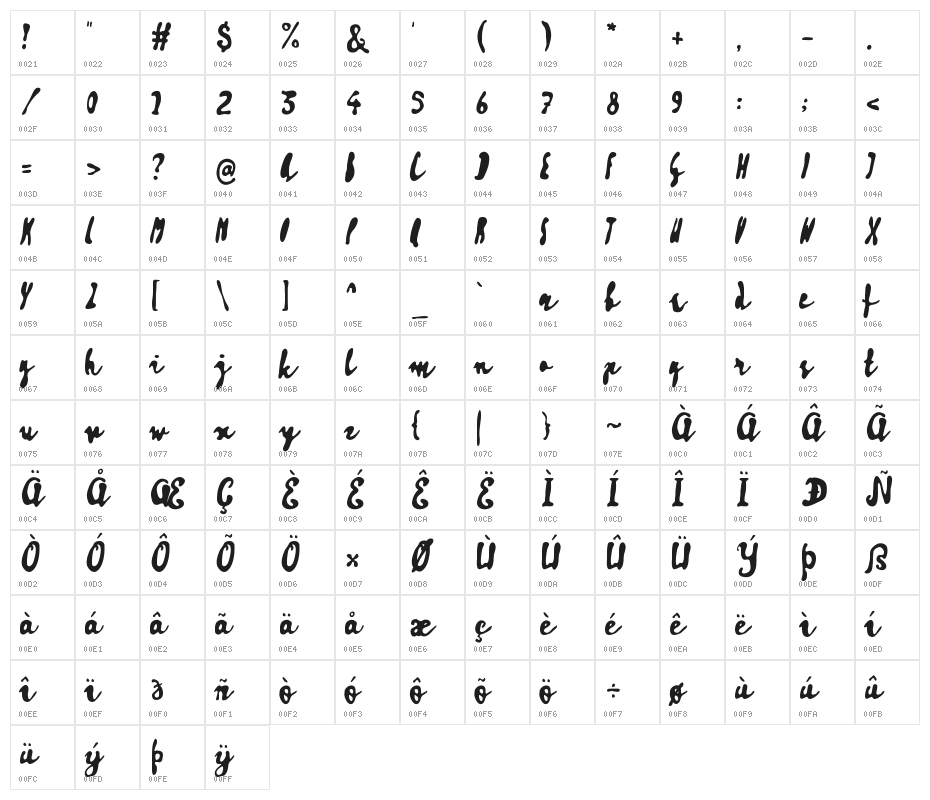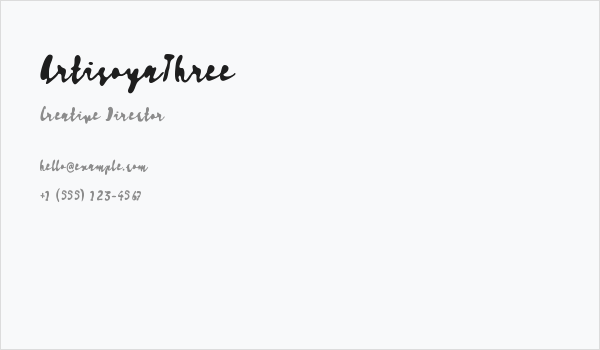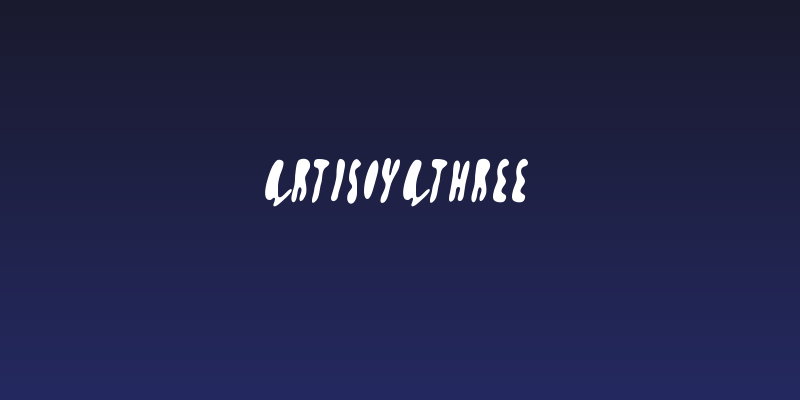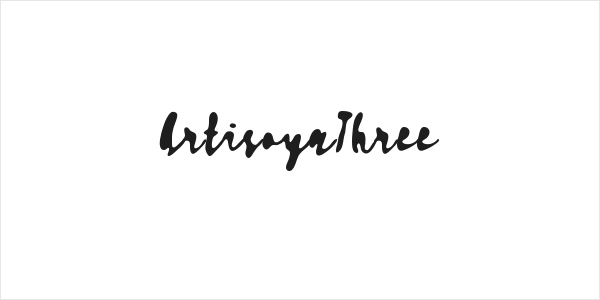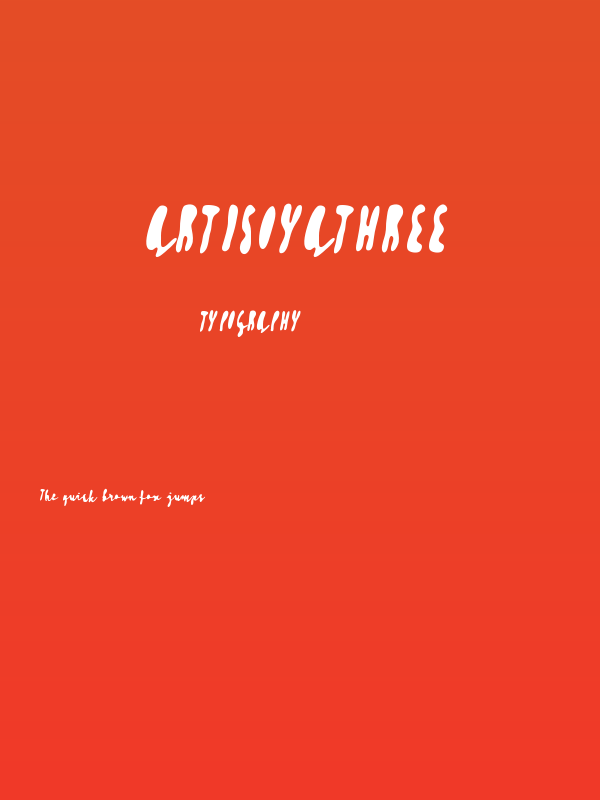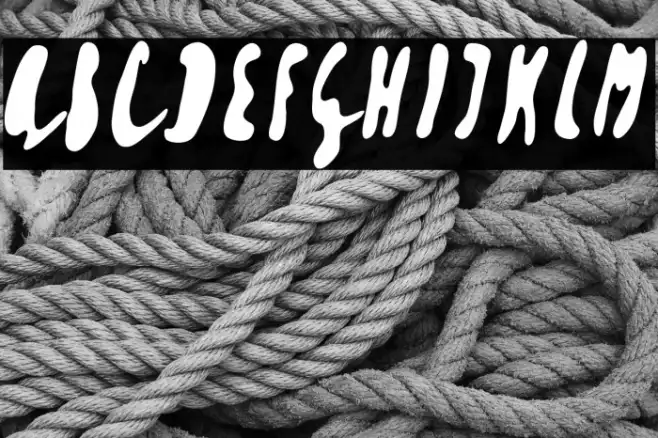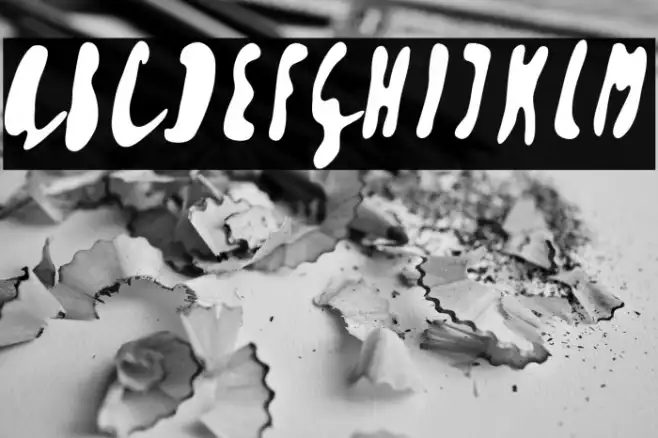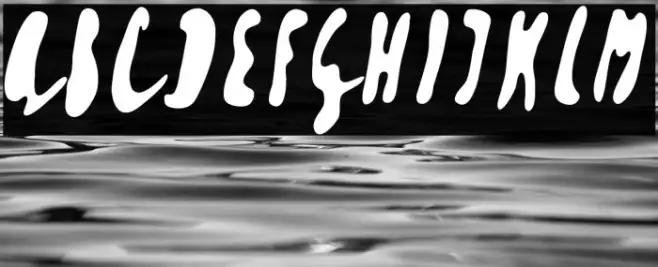
ArtisoyaThree Font
ArtisoyaThree Description
This font features a bold and expressive script style with a handwritten appearance. The letters are fluid and dynamic, with a playful and artistic flair. The uppercase characters are slightly more structured, while the lowercase letters exhibit a more freeform and cursive style. The numbers and special characters maintain the same boldness and fluidity, making them cohesive with the alphabet. The overall look is both modern and artistic, suitable for creative projects that require a personal touch.
| Overall Style | Modern, Artistic |
| Proposed Projects | Ideal for creative projects such as invitations, greeting cards, branding, and artistic posters. |